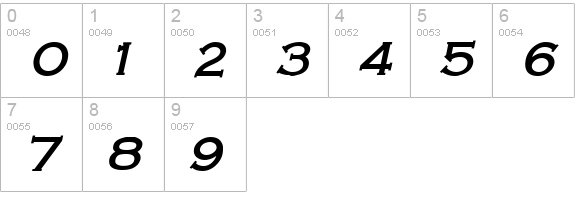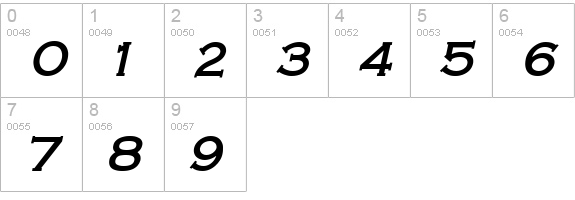
Cobalt Bold Italic is a strong, high-contrast, italic variant in the Cobalt typeface family \xE2\x80\x94 well suited to headlines, attention-grabbing titles, and strong calls-to-action.
Cobalt Bold Italic font is a modern and stylish typeface that exudes sophistication and elegance. Its bold and italic design makes it perfect for adding a touch of flair to any project. The strong lines and curves of this font create a striking visual impact, making it ideal for headlines, titles, and branding materials. What sets Cobalt Bold Italic font apart is not only its eye-catching design, but also the fact that it is available for free download at FontsMarket.com. This means that you can easily access this high-quality font without any cost, allowing you to elevate your designs without breaking the bank. Whether you're working on a website, poster, logo, or any other creative project, Cobalt Bold Italic font is sure to make a statement. Download it for free today and add a touch of sophistication to your designs.